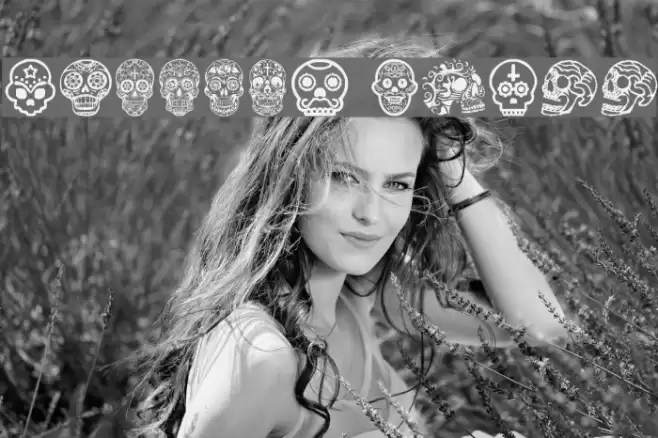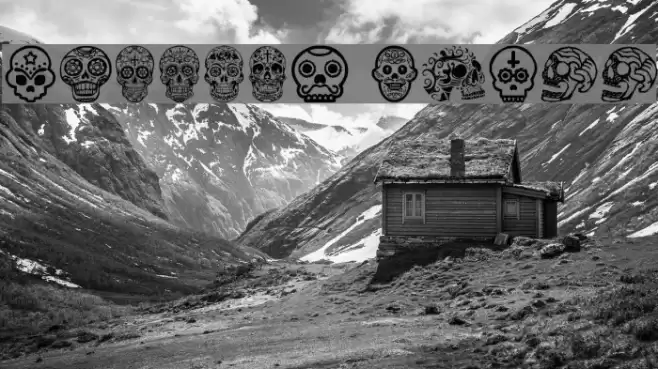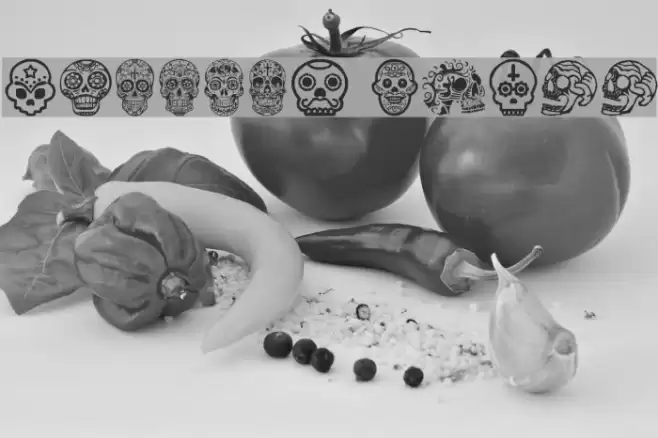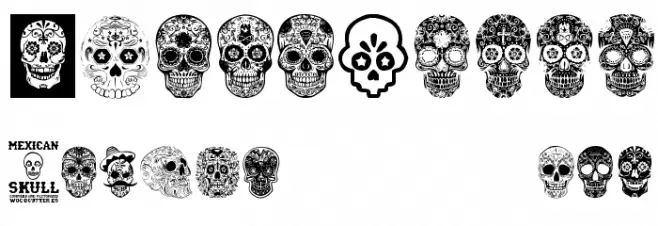
Mexican Skull Font
Mexican Skull Description
A decorative display font featuring highly detailed and ornate skull illustrations inspired by Mexican Day of the Dead (DÃa de los Muertos) motifs, with each character represented by a unique skull design. The font is monochrome, with intricate patterns and bold outlines, emphasizing a festive and artistic style.
Ornate skull-themed decorative display font inspired by Mexican folk art from Horror fonts.
- Proposed Projects: Posters, event invitations, themed branding, Halloween or DÃa de los Muertos materials, merchandise, album covers.
- Overall Style: Decorative, Folk Art, Festive
- Use Case: Headlines, Posters, Logos, Themed Graphics